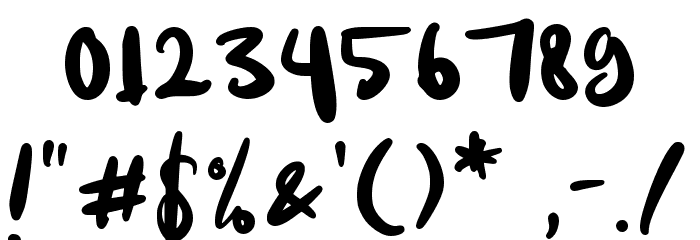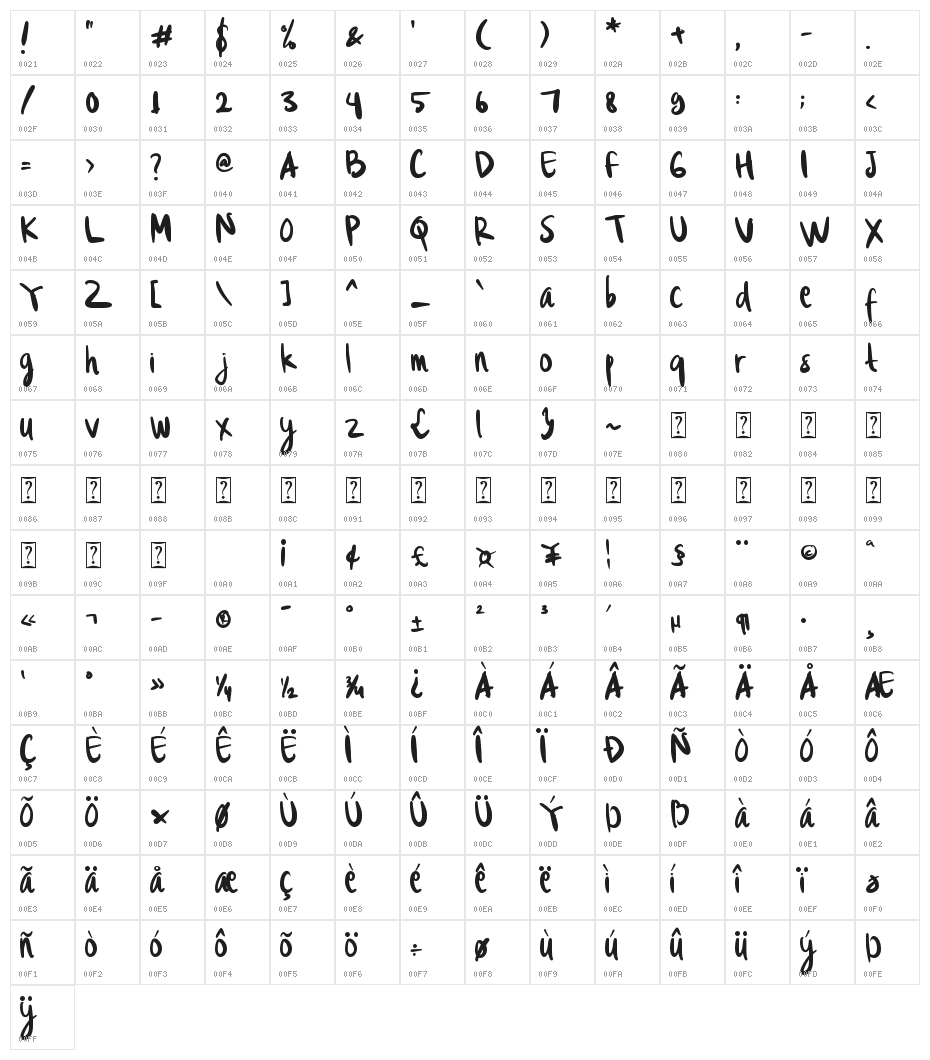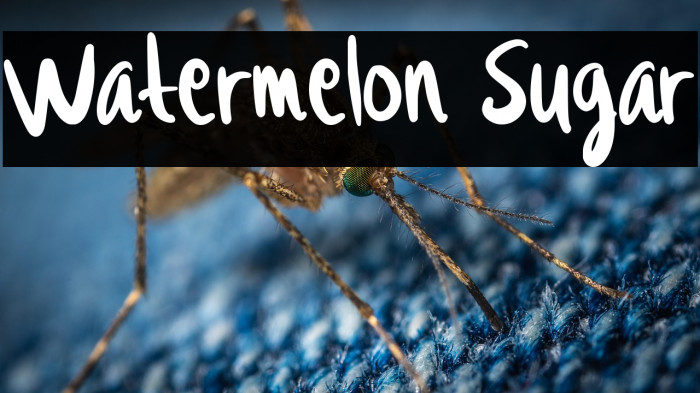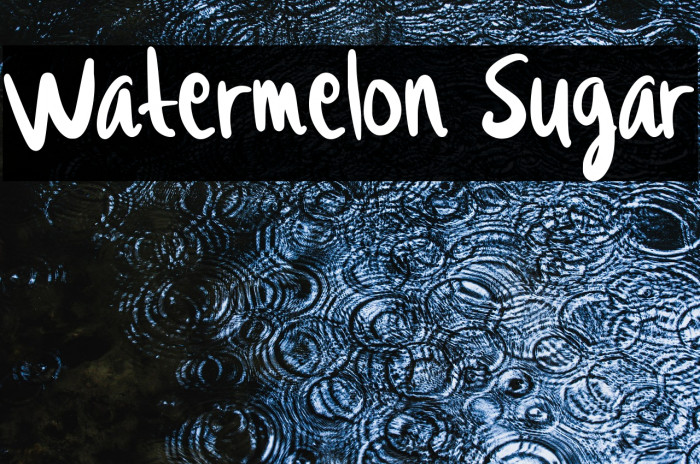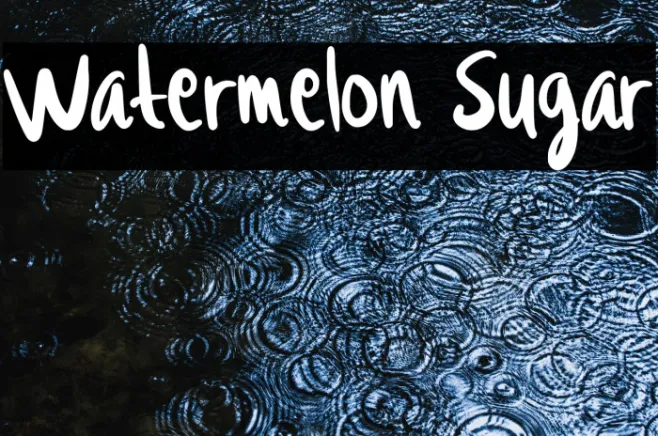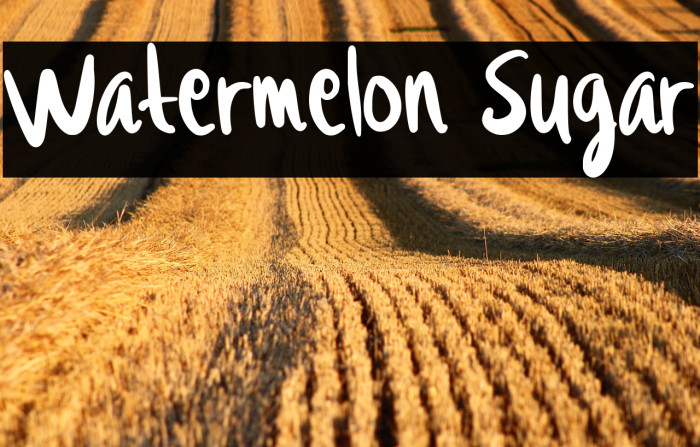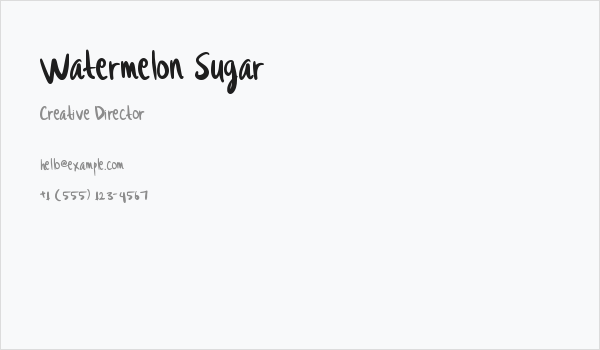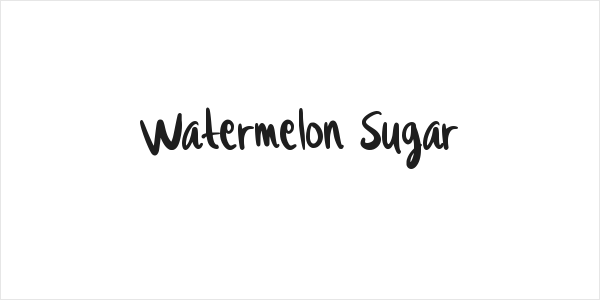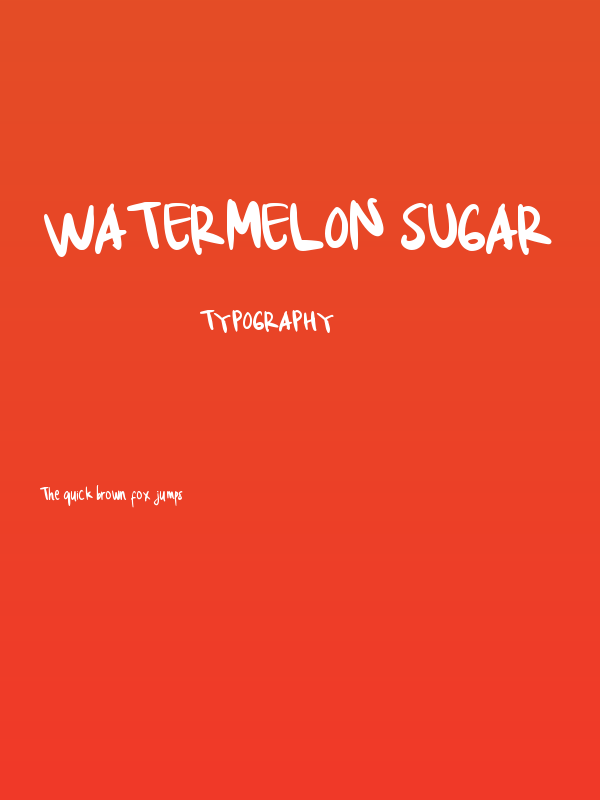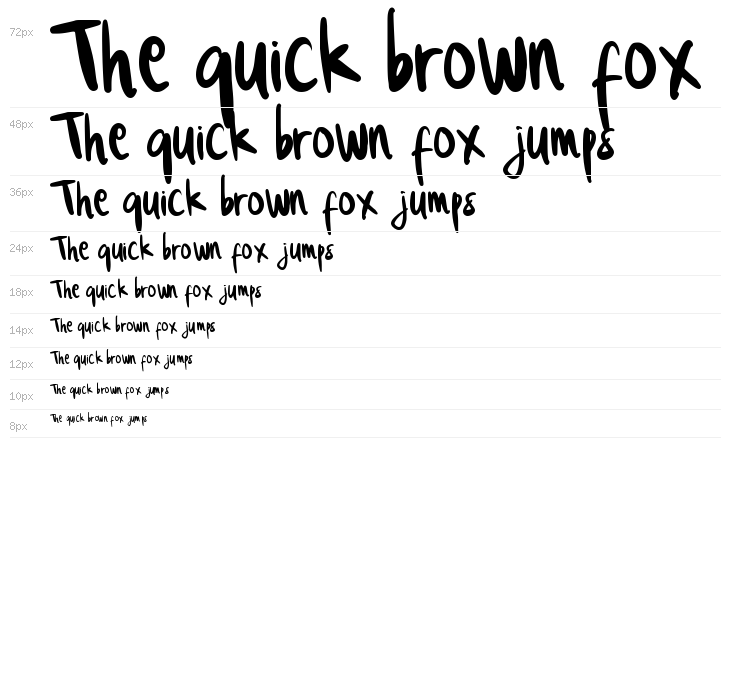
Watermelon Sugar Font
Watermelon Sugar Description
This font features a playful and energetic handwritten style, characterized by its bold and slightly irregular strokes. The letters have a casual and friendly appearance, with a slight slant that adds to its dynamic feel. The uppercase and lowercase letters are well-balanced, maintaining a consistent flow throughout. The numbers and special characters complement the overall style, making it versatile for various uses. Its informal and approachable design makes it ideal for projects that require a personal touch.
| Overall Style | Playful, Casual |
| Use Case | Logos, Headlines, Informal Invitations |
| Proposed Projects | Great for greeting cards, social media graphics, children's book covers, and playful branding. |